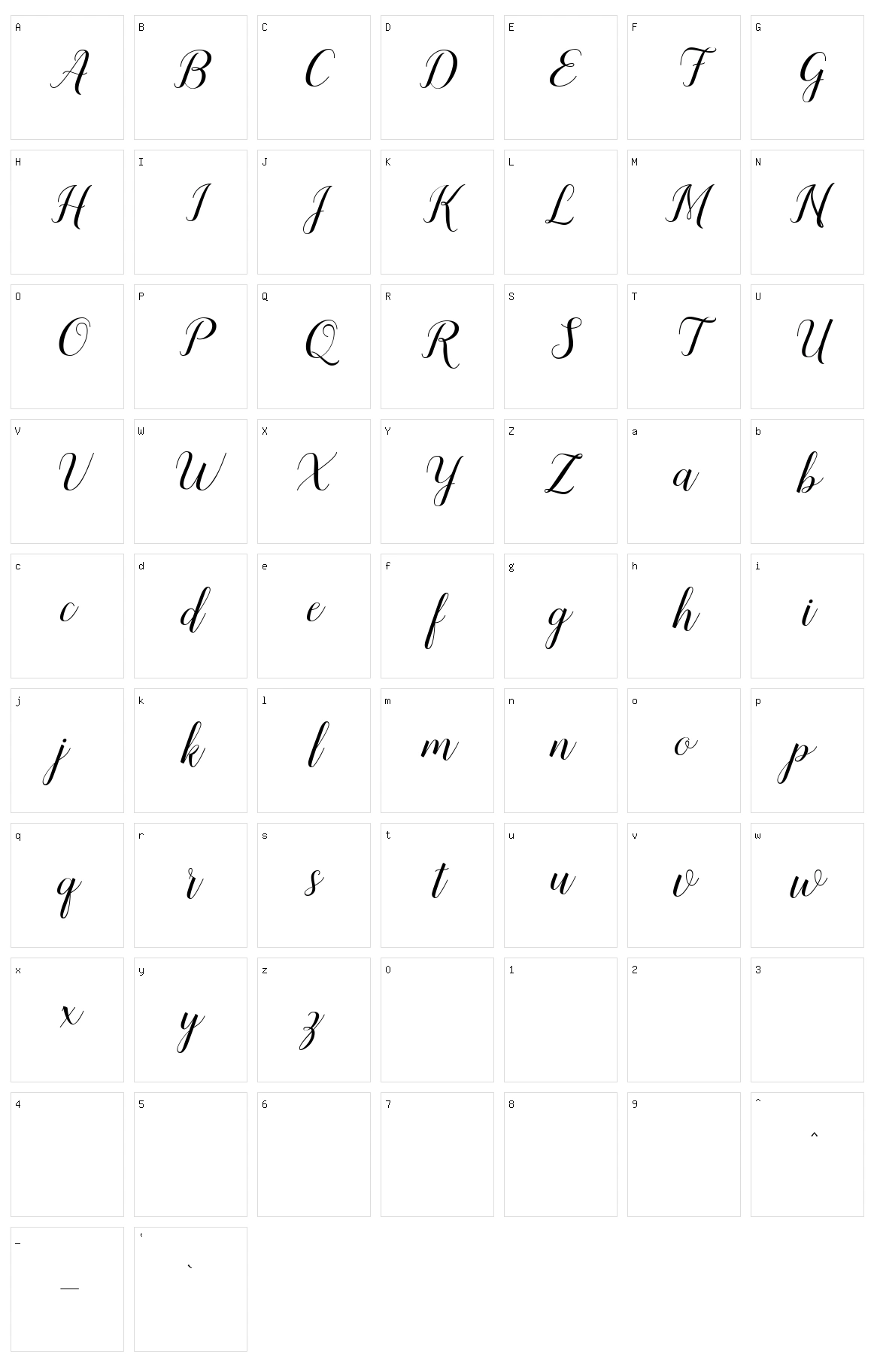
The free font Sandhya is carefully designed by Unicode Studio, showcasing a thoughtful balance of creativity and usability and falls under the Script font style. When you download the ZIP file, it contains only 18.44 KB of font files, making it lightweight and quick to download. Please review the license details below to understand permitted usage and distribution rights. If license information is not available, we recommend using this font for personal projects only or contacting the author directly for commercial usage permissions.